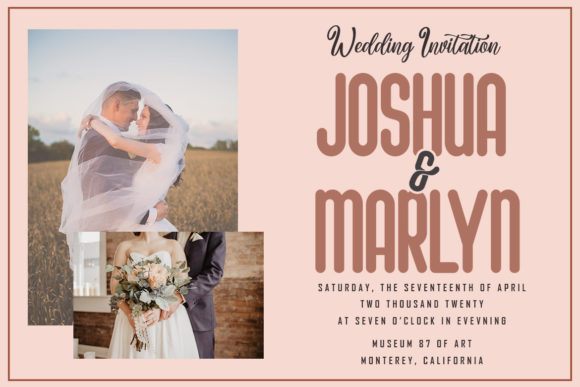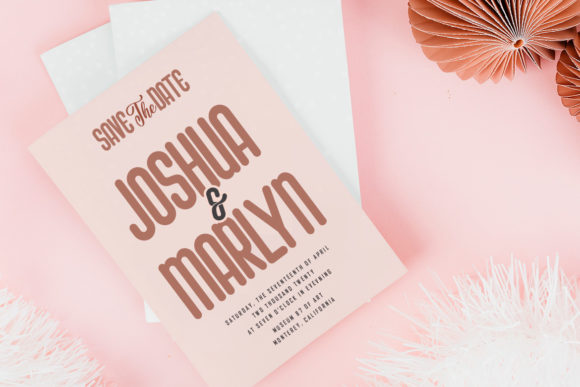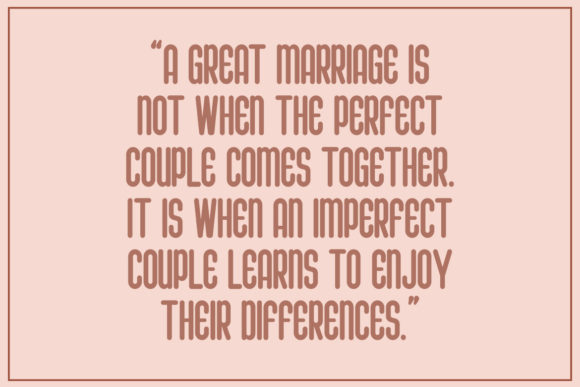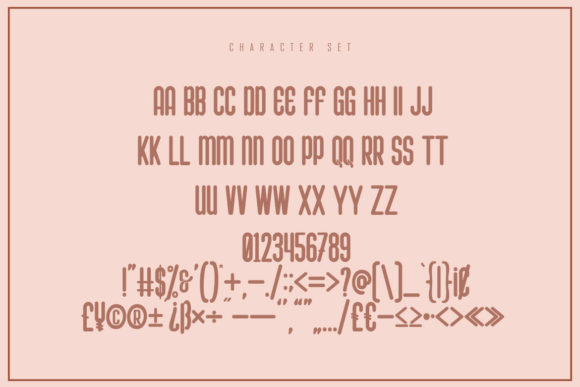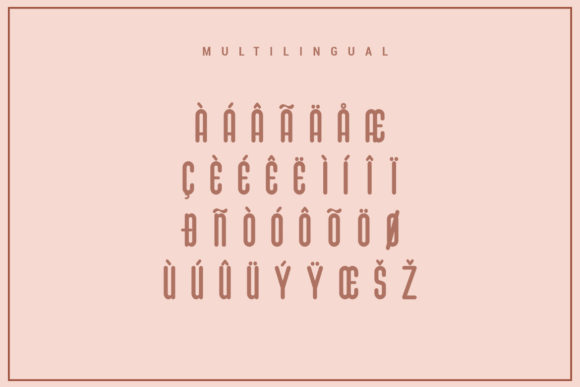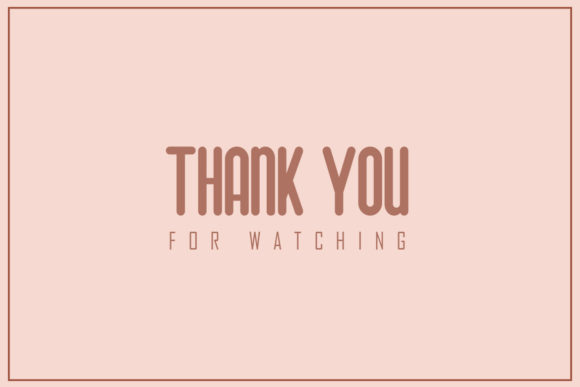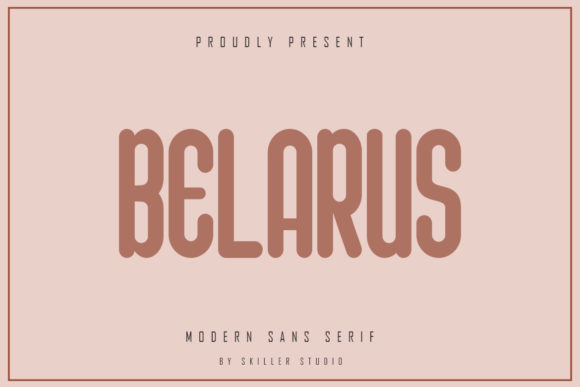
Discover the Versatility of Belarus Font: A Clean and Simple Sans Serif for Your Designs
In the world of typography, fonts play a crucial role in conveying messages, expressing creativity, and establishing brand identities. For designers and crafters looking for a versatile and clean sans serif font, Belarus Font is an excellent choice. This article will explore the features, benefits, and uses of Belarus Font, making it a go-to resource for anyone seeking a reliable and stylish font for their projects.
What is Belarus Font?
Belarus Font is a clean and simple sans serif font designed to cater to a wide range of design needs. Its minimalist approach makes it an ideal choice for various applications, from t-shirts and sportswear to logos, advertisements, and clothing. The font’s simplicity ensures that it remains legible and visually appealing, even at smaller sizes.
Key Features of Belarus Font
- Clean and Simple Design: The font’s clean lines and simple structure make it easy to read and versatile for various design applications.
- Sans Serif: The sans serif design gives Belarus Font a modern and sleek look, suitable for contemporary designs.
- High Legibility: The font’s clear and distinct letters ensure high legibility, making it perfect for both digital and print designs.
- Versatile: Belarus Font can be used for a variety of projects, including t-shirts, sportswear, logos, advertisements, clothing, and more.
Benefits of Using Belarus Font
Choosing Belarus Font for your design projects comes with several benefits:
- Professional Look: The font’s clean and modern design gives your projects a professional and polished look.
- Easy to Pair: Belarus Font’s simplicity makes it easy to pair with other fonts, allowing for creative and harmonious design combinations.
- Wide Range of Applications: From fashion to marketing, Belarus Font’s versatility ensures it can be used across various design projects.
- Time-Saving: With its ready-to-use design, Belarus Font saves you time that would otherwise be spent on creating a custom font.
Uses of Belarus Font
Belarus Font’s versatility makes it suitable for a wide array of design projects:
- T-Shirts and Apparel: Create stylish and legible designs for t-shirts, hoodies, and other apparel.
- Sportswear: Design professional and modern sportswear with a font that stands out.
- Logos: Establish a strong brand identity with a clean and memorable logo.
- Advertisements: Use Belarus Font in advertisements to convey messages clearly and effectively.
- Clothing and Fashion: Enhance your fashion designs with a font that complements your aesthetic.
Tips for Using Belarus Font Effectively
To get the most out of Belarus Font, consider the following tips:
- Experiment with Sizes: While Belarus Font remains legible at smaller sizes, experimenting with different sizes can help you achieve the desired impact.
- Play with Colors: The font’s simplicity allows it to work well with a variety of colors. Don’t be afraid to experiment with different color schemes.
- Combine with Other Fonts: Pair Belarus Font with other fonts to create visually appealing and dynamic designs.
- Consider the Context: Ensure that the font aligns with the overall theme and message of your design project.
Belarus Font is a valuable resource for designers and crafters looking for a clean, simple, and versatile sans serif font. Its wide range of applications, from t-shirts and sportswear to logos and advertisements, makes it a go-to choice for various design projects. By understanding its features, benefits, and uses, you can effectively incorporate Belarus Font into your designs and enhance your creative output.